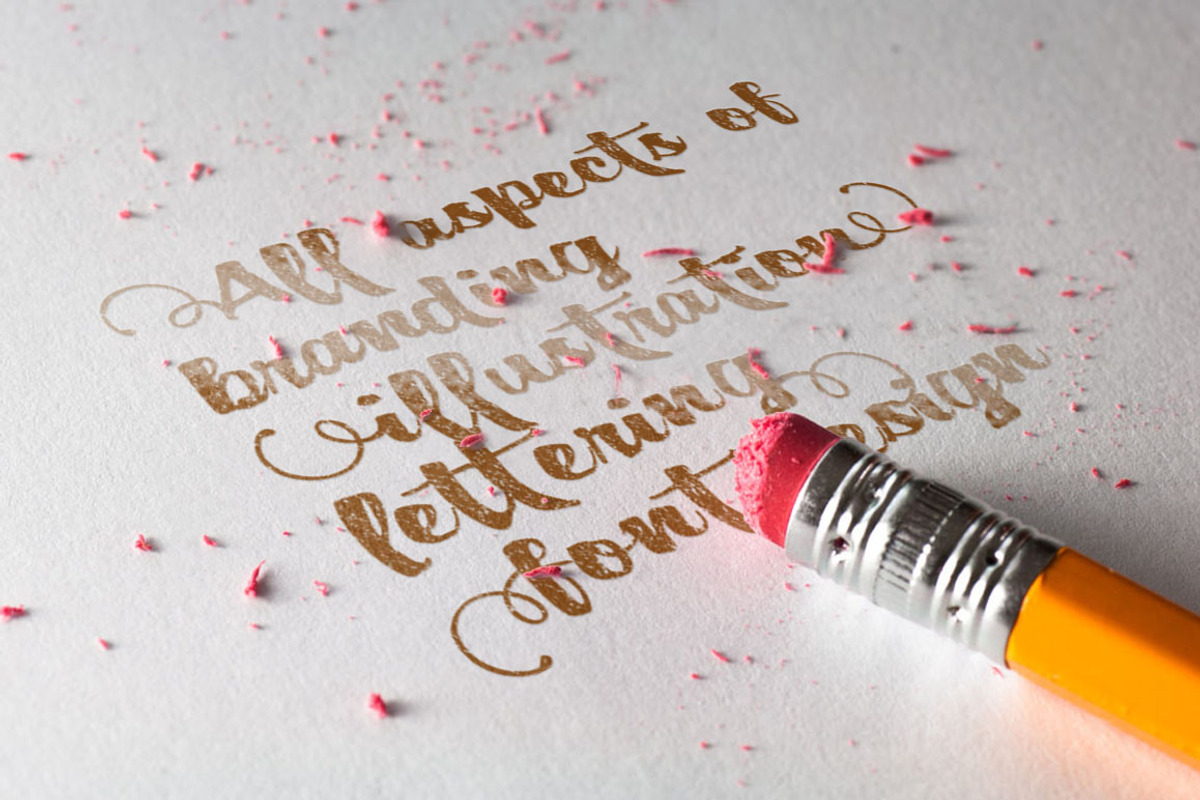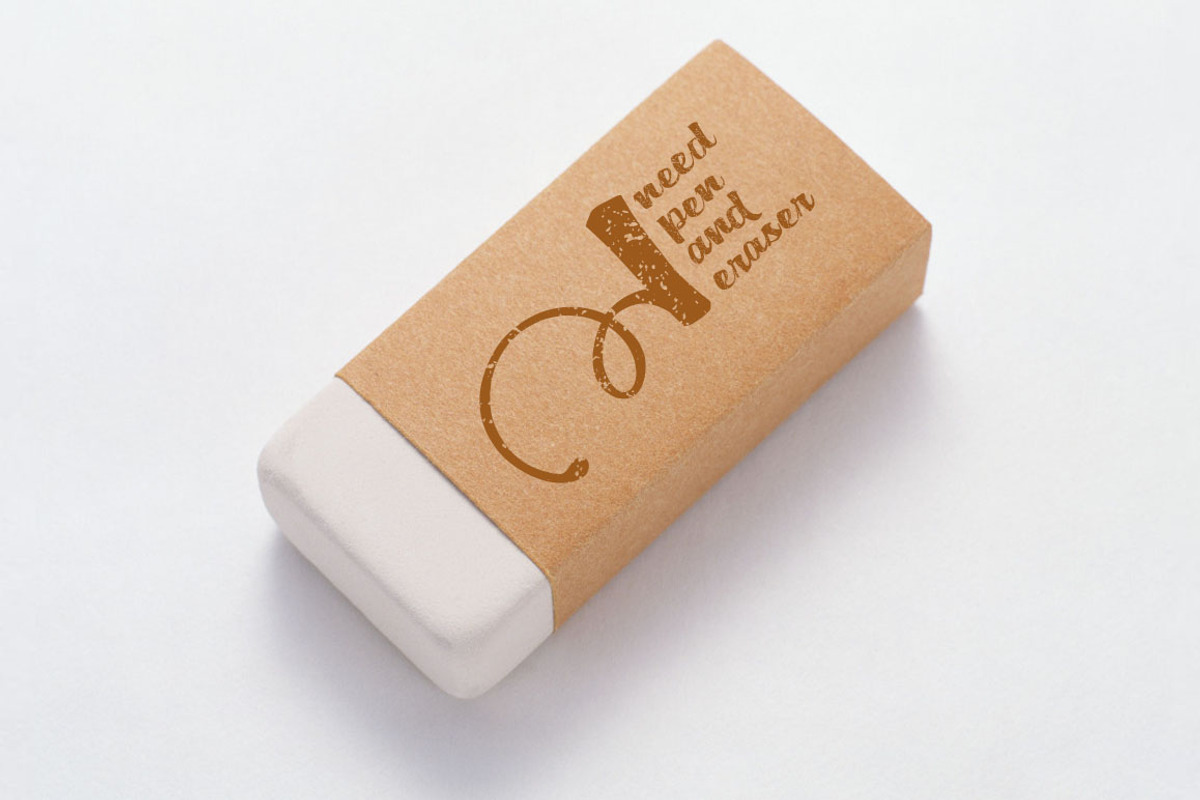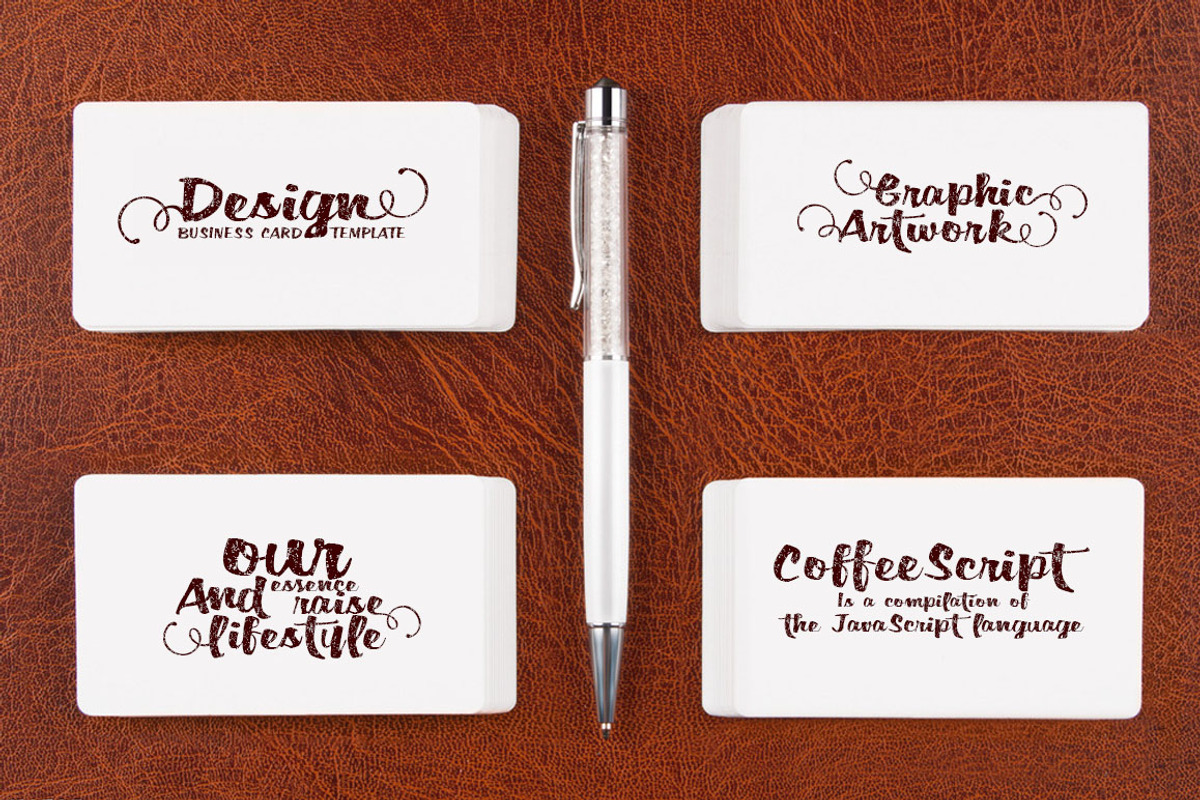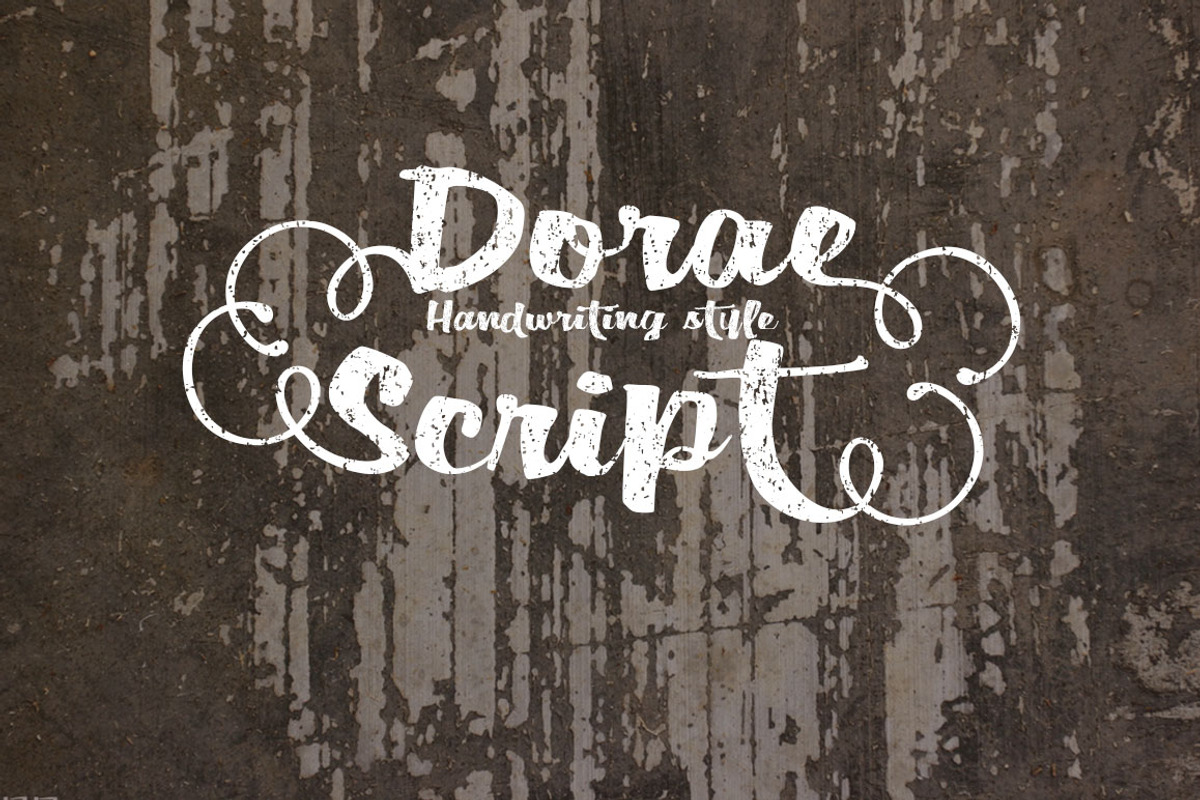
Dorae Script TureType Font
Dorae Script TureType Font by alphadesign is a font selected for branding, posters, packaging, typography.
- including initial and terminal letters, alternates, ligatures.
Why Dorae Script TureType Font is worth a look
Dorae Script TureType Font by alphadesign fits naturally into Branding, posters, packaging, typography.